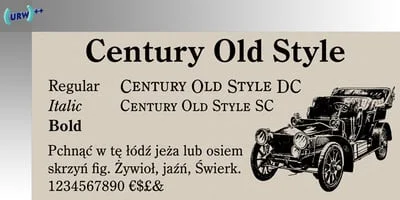
Century Old Style Font
Century Old Style Font is perfect for traditional design applications including book publishing, academic journals, formal documents, classic branding, elegant invitations, literary magazines, historical reproductions, and prestigious corporate communications. This timeless serif typeface excels in projects that require scholarly authority and refined elegance.
What makes Century Old Style Font exciting is its rich typographic heritage rooted in early 20th-century American printing traditions. The font features distinctive old-style numerals, graceful serifs, and balanced proportions that create exceptional readability while maintaining classical sophistication. Its proven design principles have stood the test of time across generations of publishing excellence.
The Century Old Style Font family includes comprehensive weight options such as Regular, Bold, Italic, and Bold Italic variations. These traditional styles provide complete typographic coverage for complex editorial projects while maintaining the font's characteristic elegance and scholarly authority throughout different applications.
This distinguished serif typeface represents centuries of typographic refinement and publishing tradition. Editorial professionals consistently choose Century Old Style Font for its unmatched combination of readability and classical beauty. The font's academic credibility makes it ideal for scholarly publications, legal documents, and institutional communications that demand respect and authority. Its enduring appeal ensures that contemporary projects benefit from time-tested design principles while achieving timeless aesthetic quality.